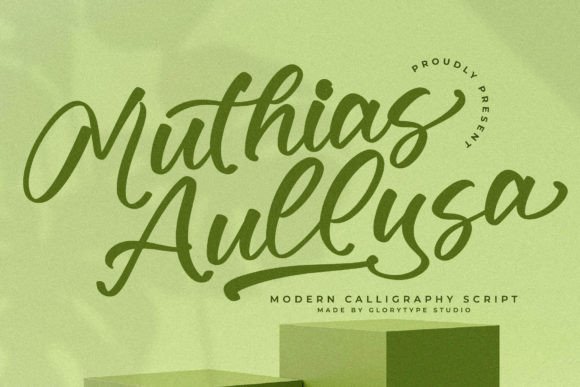
Adorn your designs with Muthias Aullysa, a calligraphy script font exuding elegance and charm. Inspired by the beauty of handwritten letters, this modern script typeface transcends ordinary, inviting you to a realm of creativity and sophistication.
With its graceful strokes and delicate curves, Muthias Aullysa captures the essence of timeless artistry. Each letter dances across the page, evoking a sense of romance and nostalgia. This versatile font is the perfect companion for logos, branding projects, and homeware designs, adding a touch of refinement and luxury to your creations.
Picture a wedding album adorned with the flowing letters of Muthias Aullysa. The names of the bride and groom, entwined in a delicate embrace, become a symbol of their everlasting love. Or envision a product packaging design that captivates customers with its elegant typography, making your products stand out from the crowd.
Unleash your creativity with Muthias Aullysa, a font that speaks to the heart. Whether designing mugs, posters, shopping bags, or t-shirts, this font will transform your ideas into captivating masterpieces. Its versatility knows no bounds, making it the perfect choice for book covers, name cards, invitation cards, greeting cards, labels, and photography.
With Muthias Aullysa, your designs will radiate a touch of class and sophistication, leaving a lasting impression on your audience. Its timeless beauty transcends trends, ensuring your creations remain relevant and captivating for years to come.
So, embark on a creative journey with Muthias Aullysa, the ultimate font for elegant and enchanting designs. Let your imagination bloom and allow this modern calligraphy script to add a touch of magic to your creations. Transform the ordinary into the extraordinary with Muthias Aullysa, the font that captures the essence of timeless beauty.